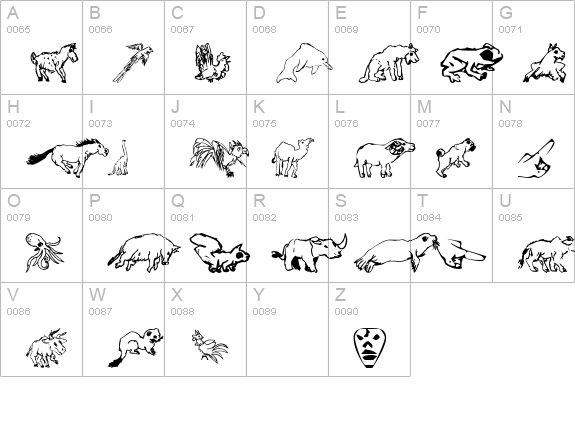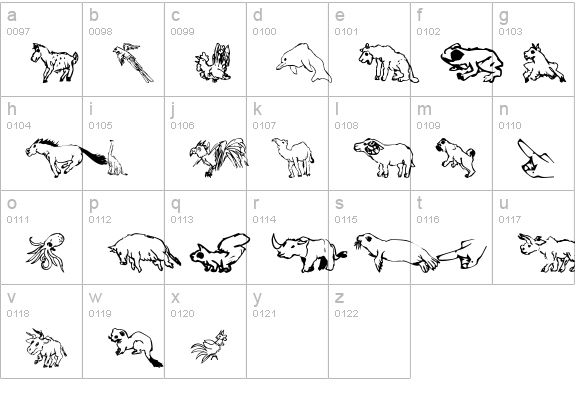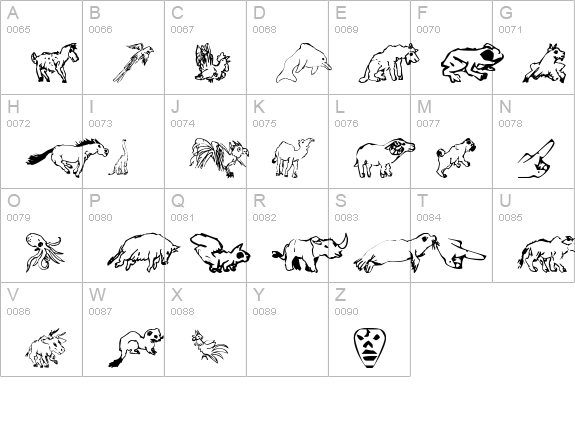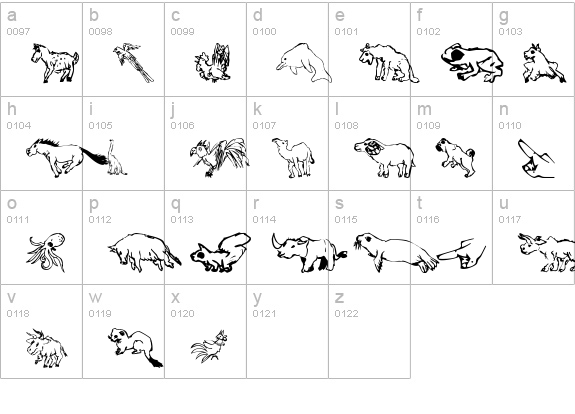
XMattsAnimalsOne Font Details
XMattsAnimalsOne font is a whimsical and playful typeface that is perfect for adding a touch of fun to your design projects. With its charming animal-inspired characters, this font is sure to bring a smile to anyone's face. Whether you're working on a children's book, a greeting card, or a party invitation, XMattsAnimalsOne font will add a delightful touch to your creations. Best of all, XMattsAnimalsOne font is completely free to download at FontsMarket.com. So go ahead and unleash your creativity with this adorable and eye-catching font today!